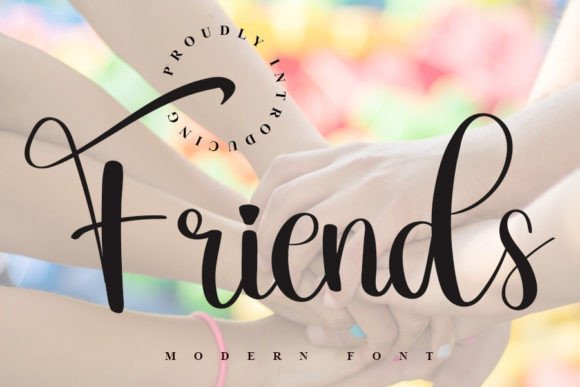
Introducing Friends Font, a captivating script font designed by ABBAsalam. With its fresh and beautiful style, this font is perfect for all your design needs. Whether you're creating banners, cover logos, wedding invitations, ID cards, flyers, or even crafts, Friends Font elevates your creations to new heights.
Captivate your audience with the elegance and charm of Friends Font. Its flowing curves and delicate strokes add a touch of sophistication to any project. Stand out from the crowd and leave a lasting impression on your customers.
Looking to make a bold statement? Friends Font is the perfect choice. Its eye-catching design will ensure that your message grabs attention and leaves a lasting impact. Let your words speak volumes with this powerful and expressive font.
But Friends Font is not just visually stunning, it also packs a punch when it comes to functionality. With its versatility, it is the best font for business signs. Whether you're a small local shop or a multinational corporation, Friends Font will help you convey your brand's personality and professionalism.
Unlock your creative potential with Friends Font. Its wide range of applications allows you to explore endless design possibilities. From elegant wedding invitations to captivating flyers, this font is your ultimate creative companion.
As you incorporate Friends Font into your designs, watch your business progress and develop. Its unique style will resonate with your target audience, leaving a lasting impression and attracting new customers. Make a statement and elevate your brand with Friends Font.